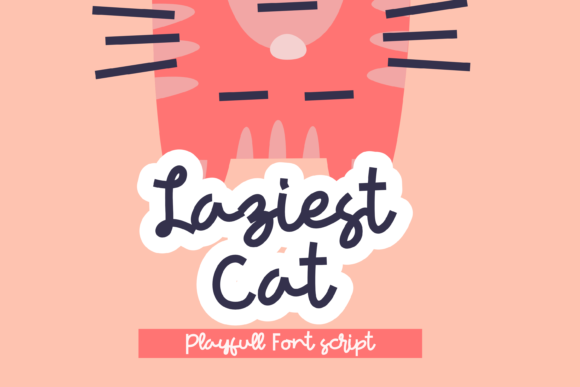
**Laziest Cat Font: A Unique and Charming Handwritten Font for Your Designs**
Indulge in the playful world of Laziest Cat Font, a delightful script font that will infuse your designs with a touch of whimsy and individuality. This enchanting font, crafted by the talented Ongtype co., is a masterpiece that will transform your creative endeavors into captivating works of art.
With its casual and trendy style, Laziest Cat Font oozes with personality. Its playful curves and quirky imperfections mimic the free-spirited nature of a lazy cat, evoking a sense of comfort and relaxation. Whether you're designing invitations, greeting cards, or social media posts, this font will add a touch of warmth and charm that will captivate your audience.
Embrace the versatility of Laziest Cat Font, a true chameleon in the world of typography. Its adaptability makes it an ideal choice for a wide range of design projects. From elegant wedding invitations to vibrant posters, this font will effortlessly complement the essence of your designs. Let your creativity soar and explore the endless possibilities that await you with Laziest Cat Font.
Unleash your inner artist with this charming handwritten font. Its unique character will add a touch of magic to your projects, transforming ordinary designs into extraordinary masterpieces. Experience the joy of crafting designs that are uniquely yours, infused with the playful spirit of Laziest Cat Font.
Indulge in the world of Laziest Cat Font today and embark on a creative journey where your designs will shine with originality and charm!